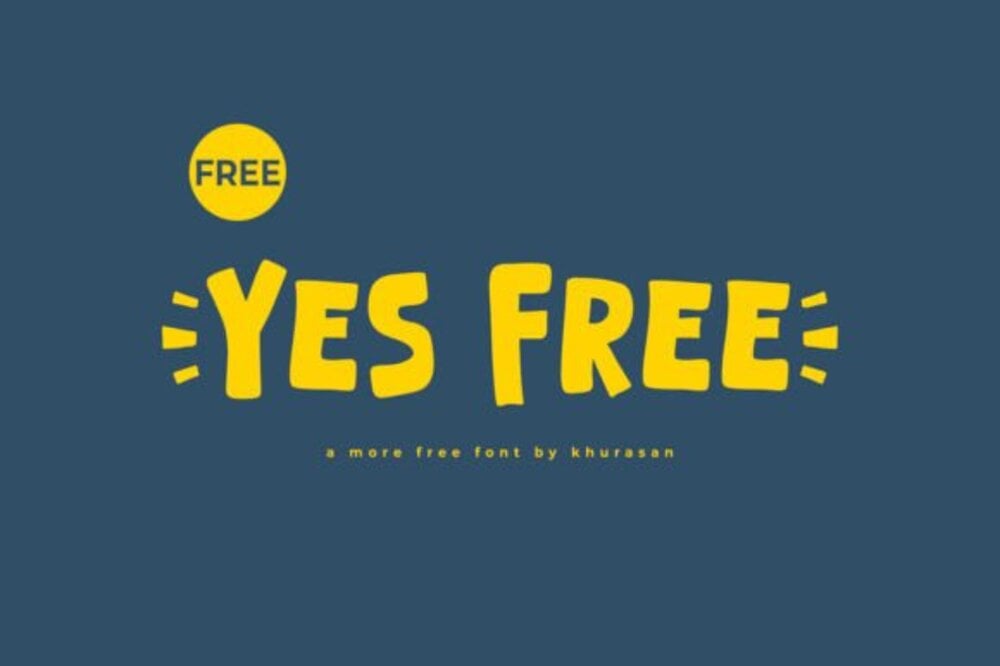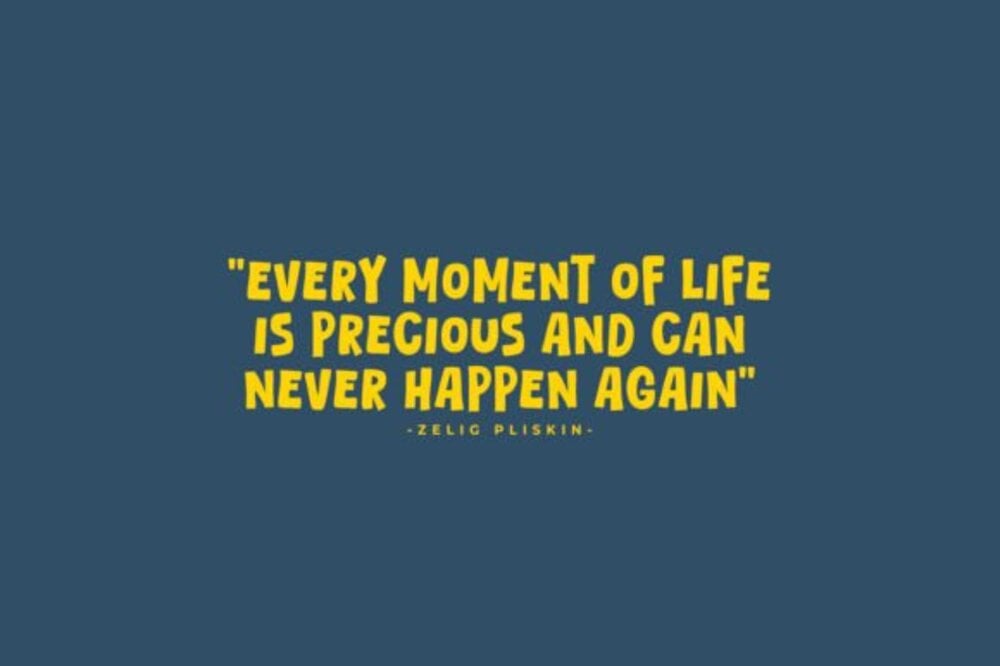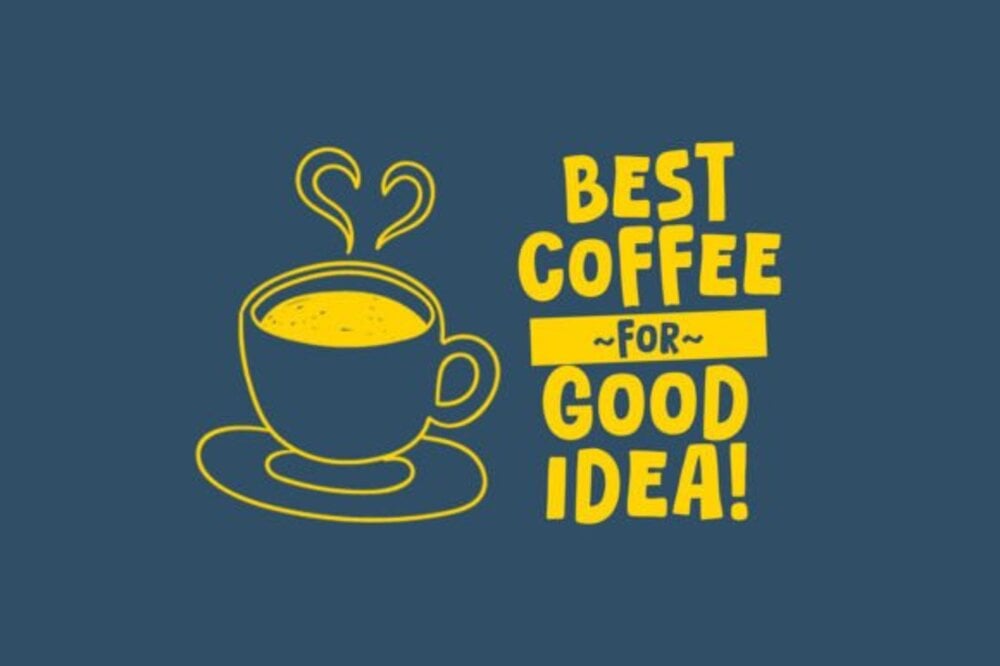
Yes Free Font
Yes Free is a modern and versatile font that exudes confidence and simplicity. Its clean lines and contemporary design make it a perfect choice for branding, headlines, websites, and social media graphics. With its professional yet approachable aesthetic, Yes Free adapts seamlessly to various creative projects. This typeface combines style and clarity, ensuring your message is communicated with elegance and impact. A perfect balance of functionality and flair!